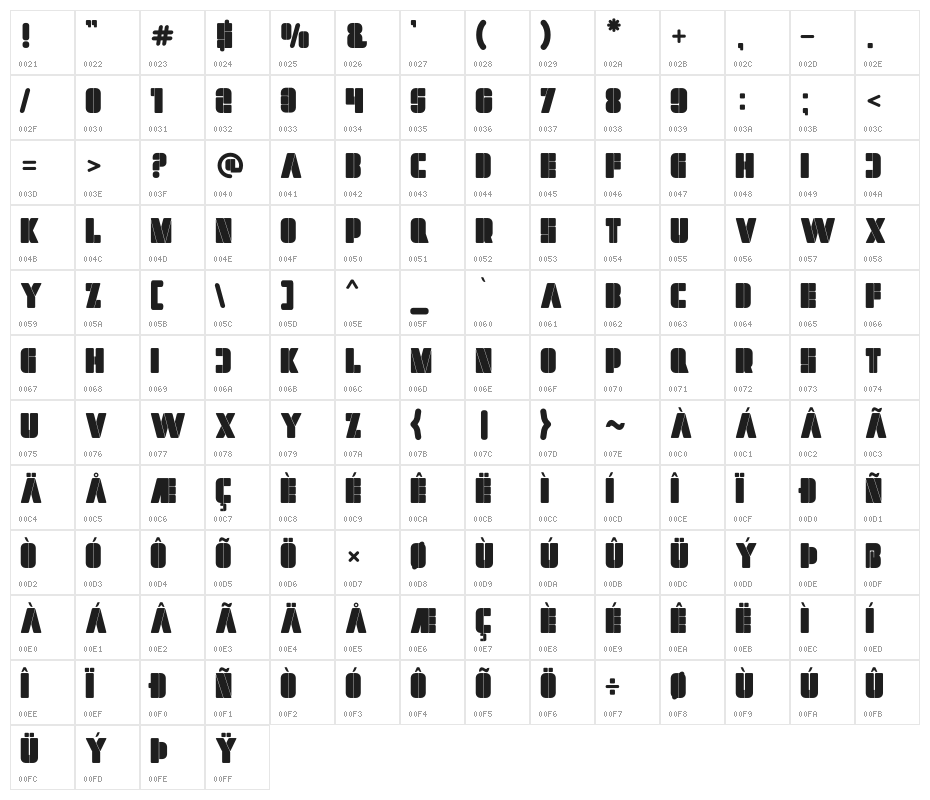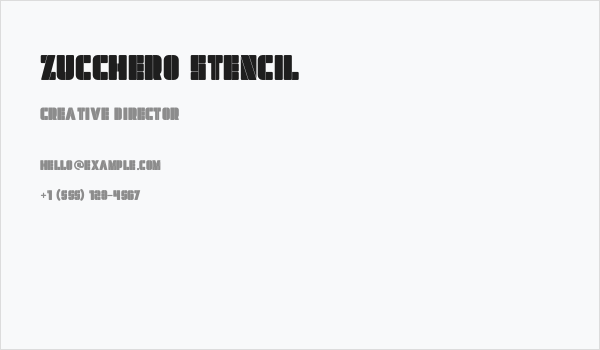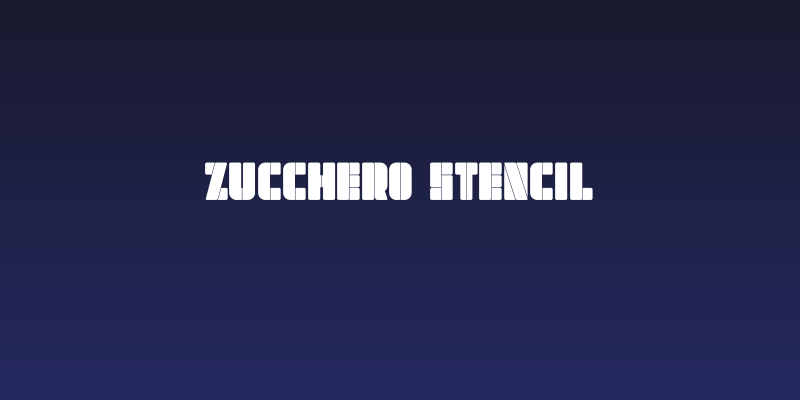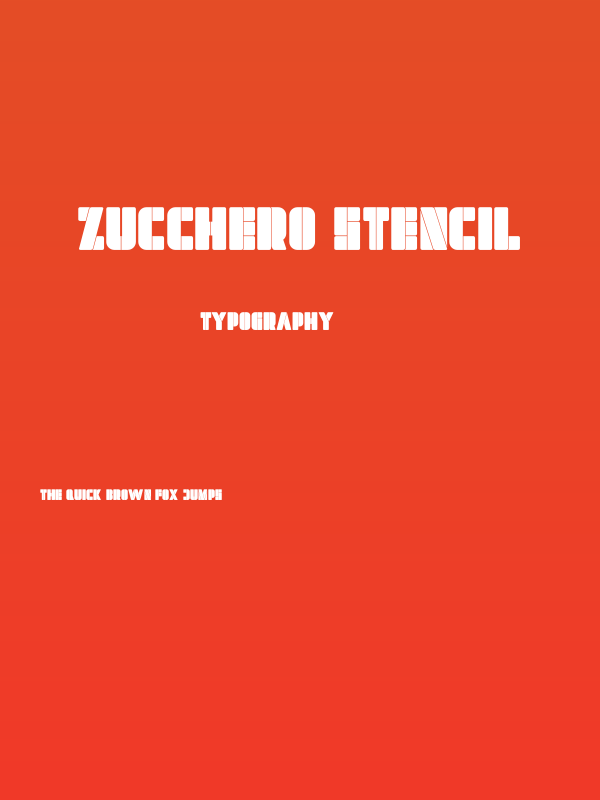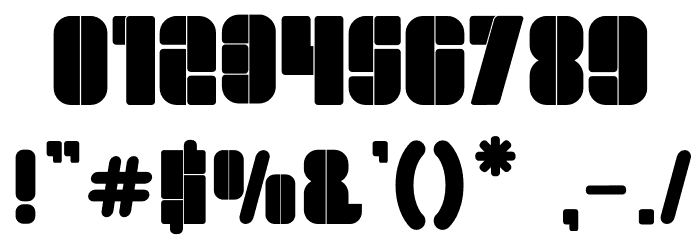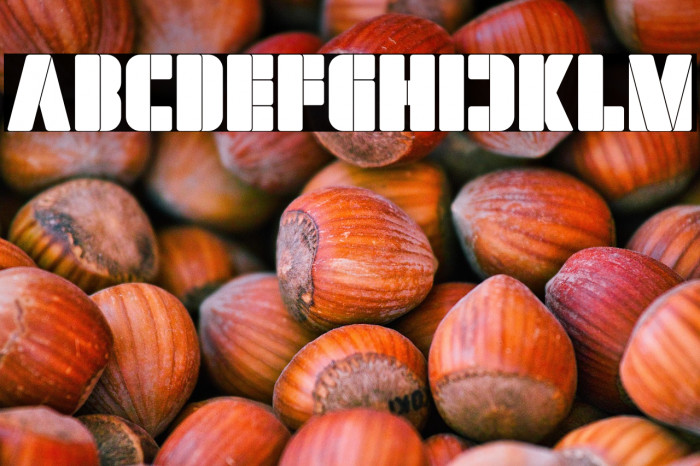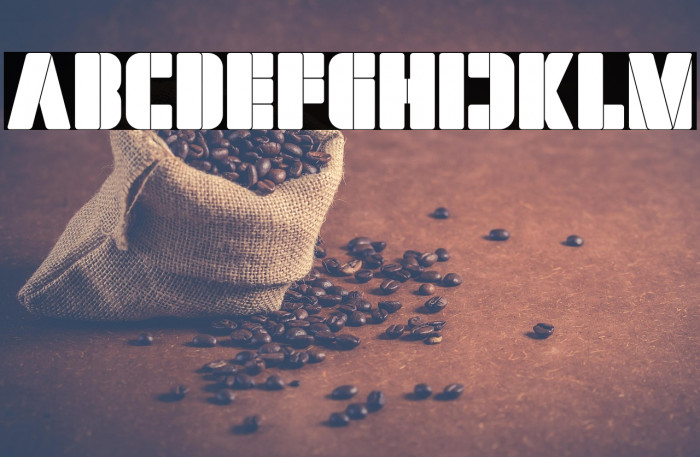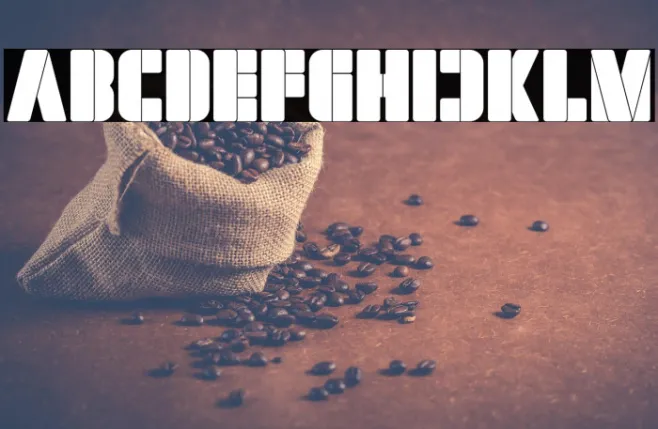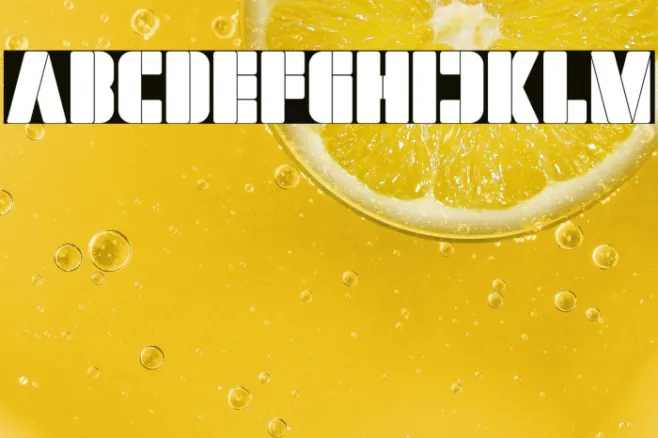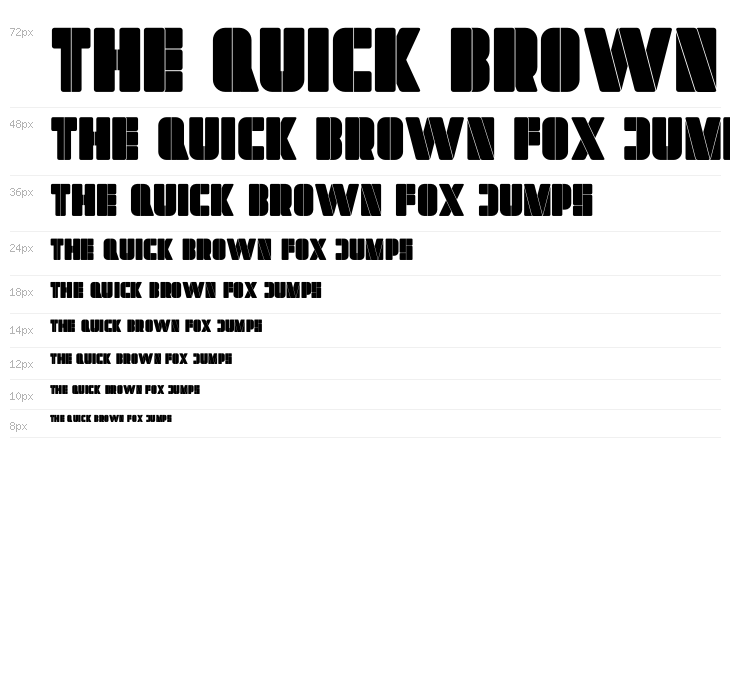
Zucchero Stencil Font
Zucchero Stencil Description
This font features a bold, geometric stencil design with thick, uniform strokes and sharp angles. The characters are constructed with a modular appearance, creating a striking and industrial aesthetic. The stencil gaps are strategically placed, enhancing readability while maintaining the distinct style. Its bold presence makes it ideal for impactful designs, and the uniformity of the shapes gives it a modern, structured feel. The font's design is consistent across uppercase letters, numbers, and special characters, ensuring a cohesive look in any application.
| Proposed Projects | Ideal for branding, posters, signage, and any project requiring a strong, impactful visual statement. |